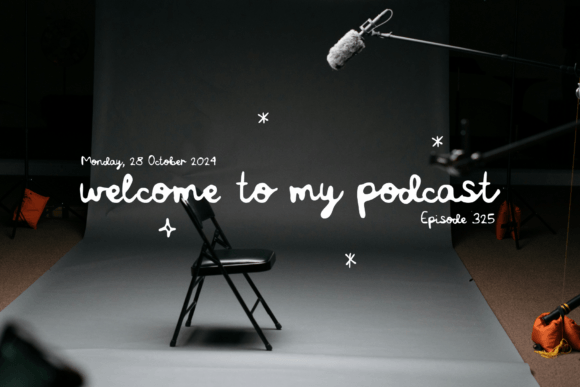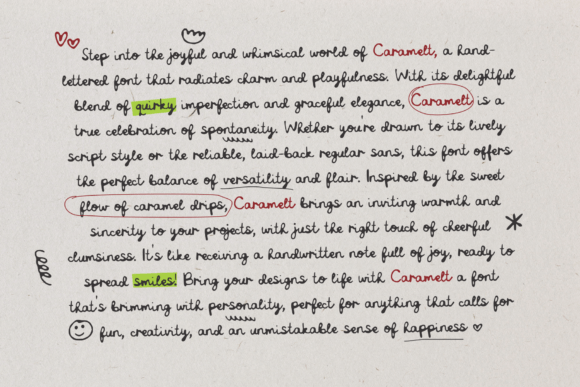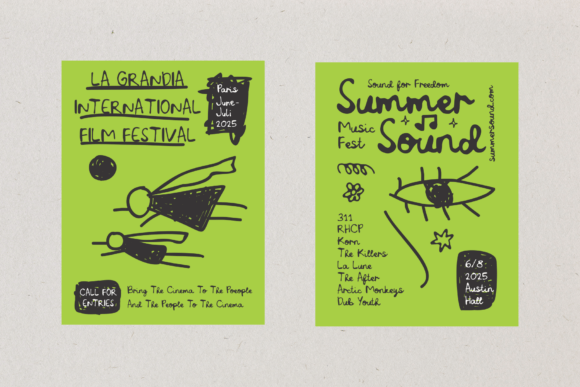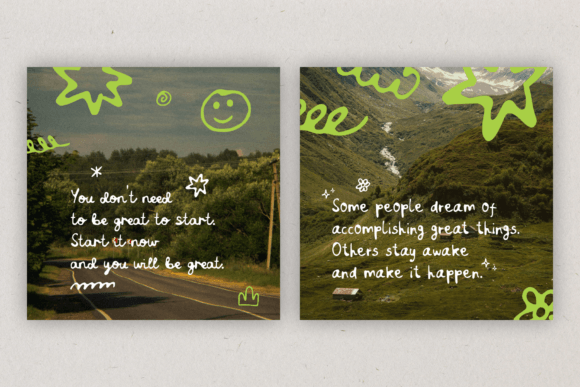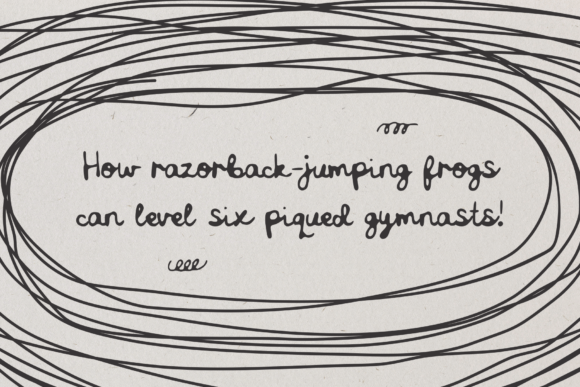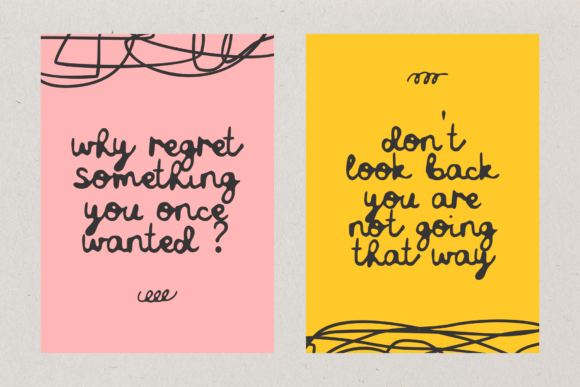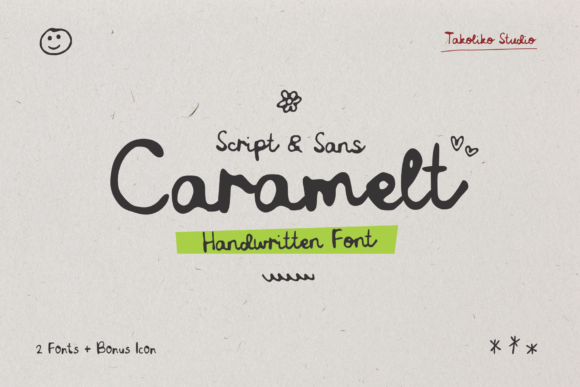
Introducing Caramelt Font: The Ultimate Celebration of Whimsy and Charm
Step into the joyful and whimsical world of Caramelt, a hand-lettered font that radiates charm and playfulness. With its delightful blend of quirky imperfection and graceful elegance, Caramelt is a true celebration of spontaneity. Whether you’re drawn to its lively script style or the reliable, laid-back regular sans, this font offers the perfect balance of versatility and flair.
The Inspiration Behind Caramelt
Inspired by the sweet flow of caramel drips, Caramelt brings an inviting warmth and sincerity to your projects, with just the right touch of cheerful clumsiness. The font’s design is reminiscent of a carefree, handwritten note, full of joy and ready to spread smiles. The imperfections and quirks of the hand-lettered style give Caramelt a unique personality that is impossible to ignore.
A Font for Every Creative Project
Caramelt is a font that’s brimming with personality, perfect for anything that calls for fun, creativity, and an unmistakable sense of happiness. Whether you’re a designer, craftsperson, or DIY enthusiast, Caramelt is the perfect addition to your creative toolkit. From playful greeting cards and invitations to lively branding and packaging, Caramelt’s versatility knows no bounds.
The Benefits of Using Caramelt Font
So, what makes Caramelt an ideal choice for your design projects? Here are just a few benefits of using this delightful font:
- Unique Personality: Caramelt’s hand-lettered style gives it a distinctive personality that sets it apart from more traditional fonts.
- Versatility: With both script and sans styles, Caramelt offers the perfect balance of elegance and playfulness.
- Emotional Connection: The warmth and sincerity of Caramelt’s design create an instant emotional connection with your audience.
- Easy to Read: Despite its playful nature, Caramelt remains easy to read, making it perfect for body text and headlines.
Using Caramelt in Your Design Projects
So, how can you incorporate Caramelt into your design projects? Here are a few ideas to get you started:
- Greeting Cards and Invitations: Add a touch of whimsy to your greeting cards and invitations with Caramelt’s playful script style.
- Branding and Packaging: Use Caramelt to create eye-catching branding and packaging that stands out on store shelves.
- Social Media Graphics: Bring a smile to your followers’ faces with Caramelt’s cheerful design.
- Web Design: Use Caramelt to add a touch of personality to your website’s typography.
Tips for Getting the Most Out of Caramelt
To get the most out of Caramelt, here are a few tips to keep in mind:
- Experiment with Different Sizes: Caramelt looks great in a variety of sizes, from small body text to large headlines.
- Play with Color: Caramelt’s design lends itself perfectly to bright, bold colors that add to its playful personality.
- Mix and Match: Combine Caramelt with other fonts to create a unique typography style.
In conclusion, Caramelt is a font that embodies the perfect blend of whimsy, charm, and playfulness. With its unique personality, versatility, and emotional connection, Caramelt is the perfect addition to any design project. Whether you’re a designer, craftsperson, or DIY enthusiast, Caramelt is sure to bring a smile to your face and inspire your creativity. So why wait? Dive into the joyful world of Caramelt and bring your designs to life with this delightful font!